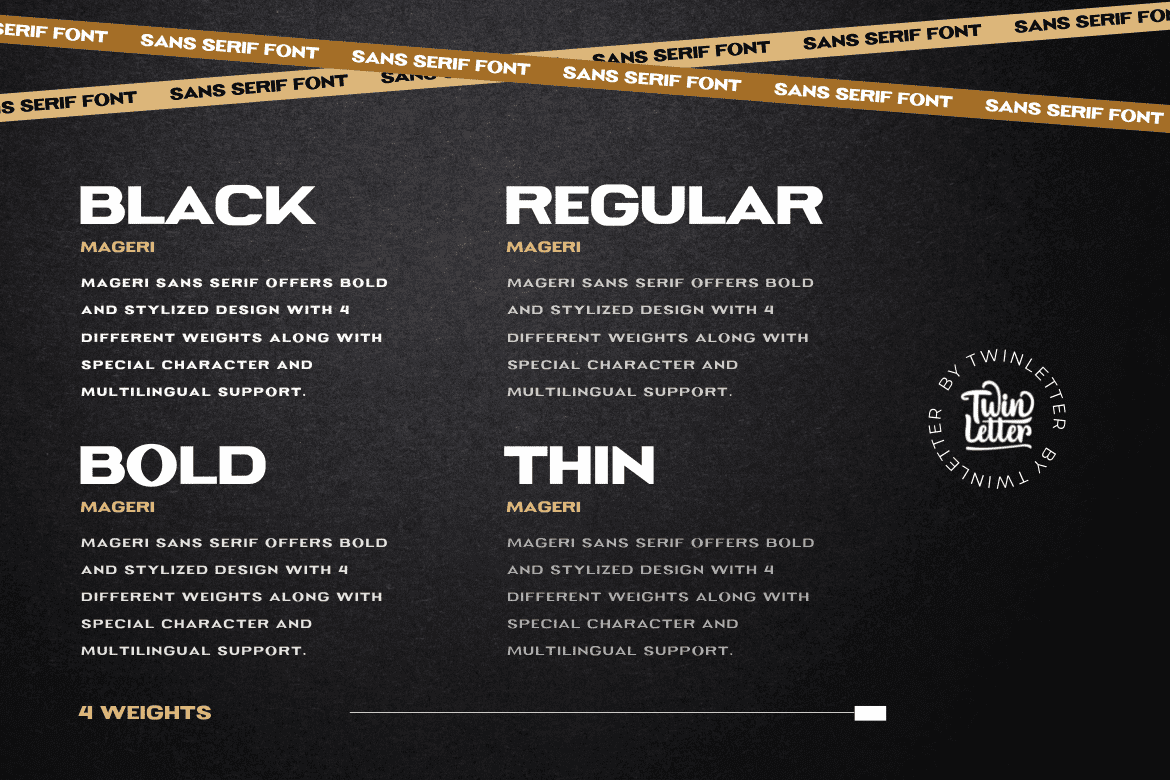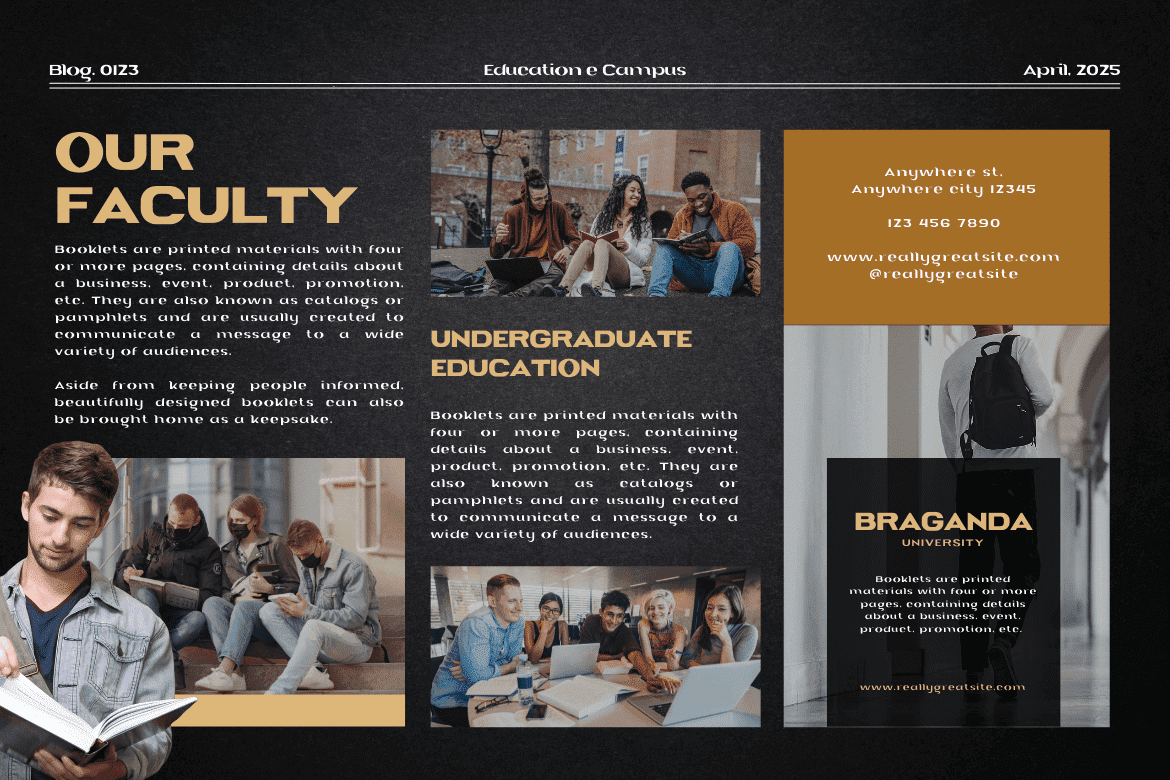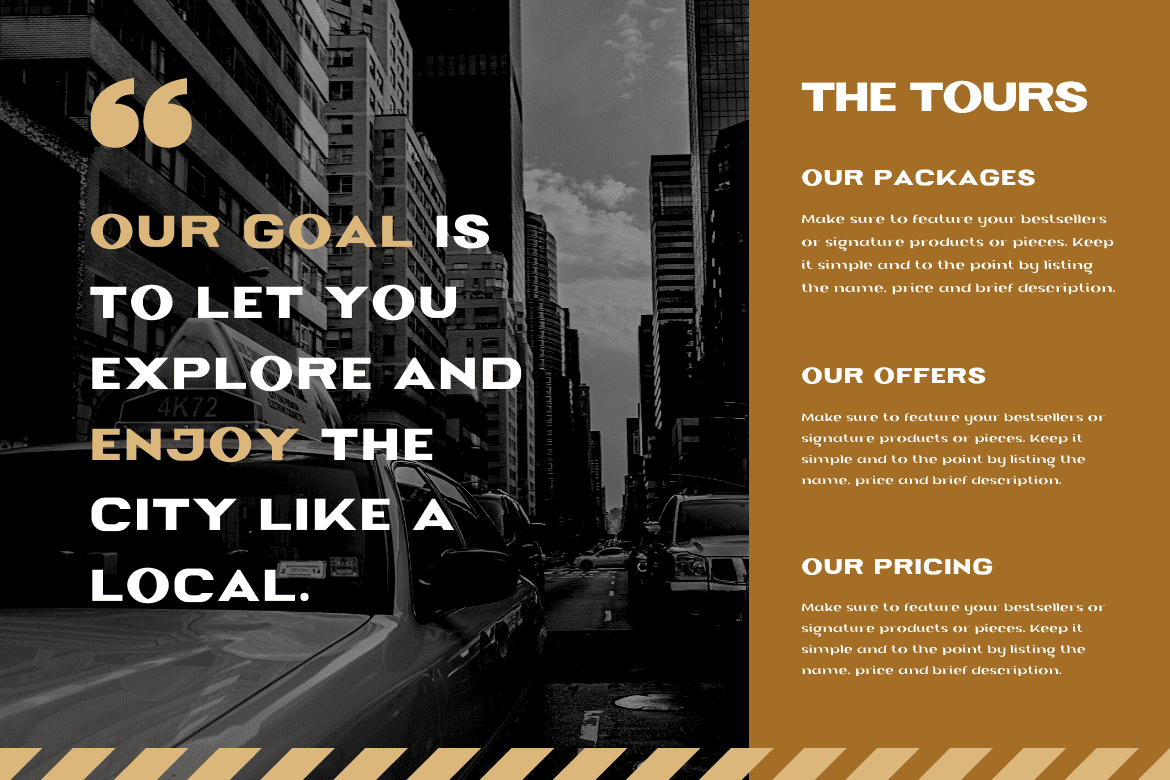
Mageri Sans Serif Font
It’s a beautiful and charming typeface. Designed with smooth curves and a unique shape, Mageri is the perfect font for all of your creative projects, from websites to posters, banners, and more.
of course, your various design projects will be perfect and extraordinary if you use this font because this font is equipped with a font family, both for titles and subtitles and sentence text, start using our fonts for your extraordinary projects.